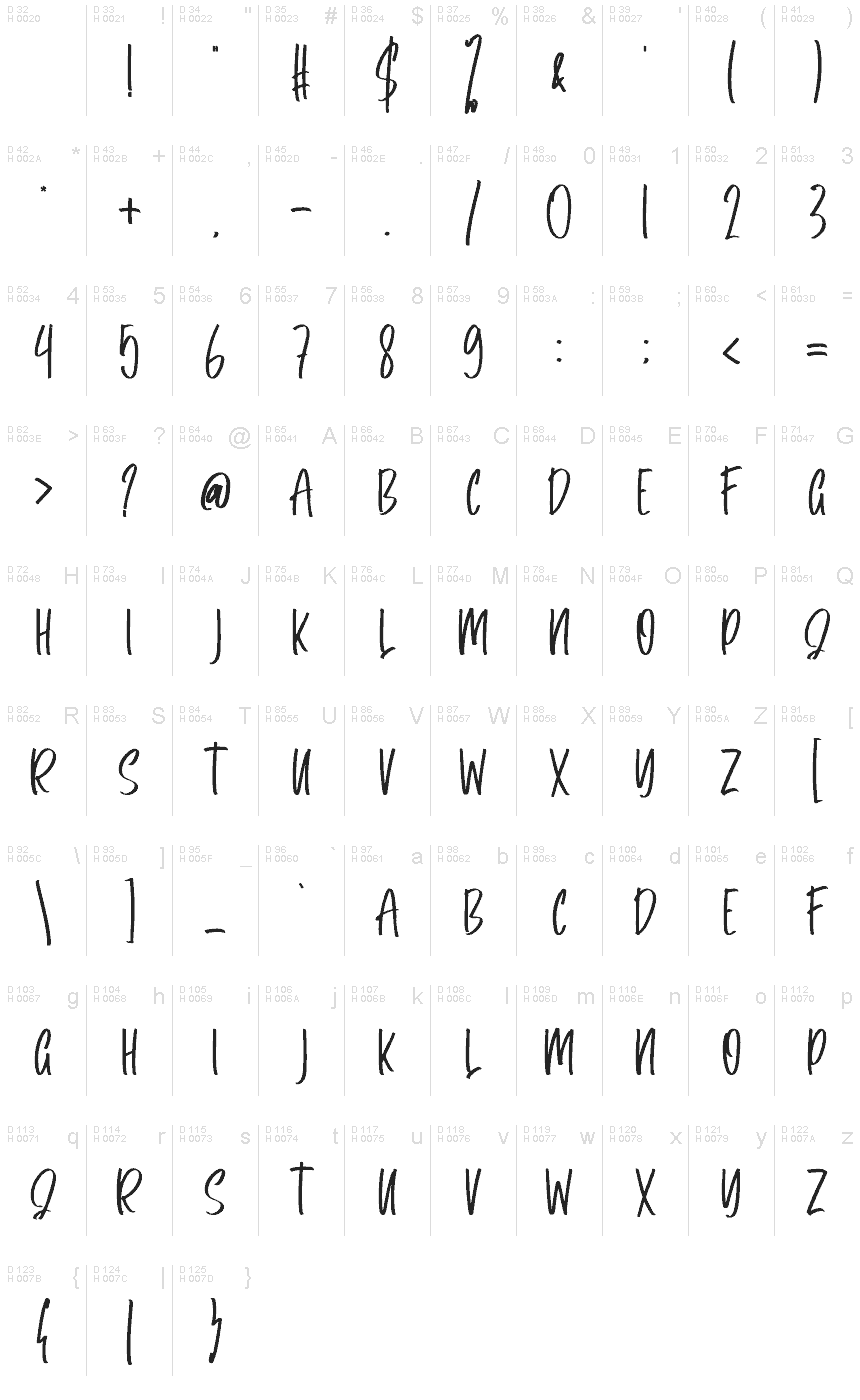
Quaresma
Quaresma font by Skiiller Studio is a condensed handwritten font that mixes artistic flair with a modern aesthetic. Expressive, with an authentic casual feel, this is a lettered typeface whose letters can be combined freely through different words as its balanced and natural design gives it life.
Use Quaresma for book titles, album covers, CD covers, posters, logos and branding designs, flyers, postcards and cards for special events and occasions. It can also be used in apparel items such as t-shirts or caps.